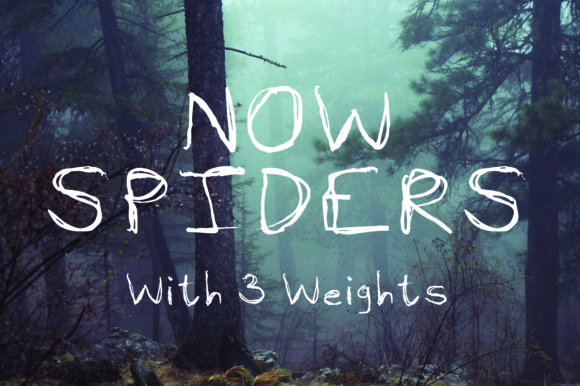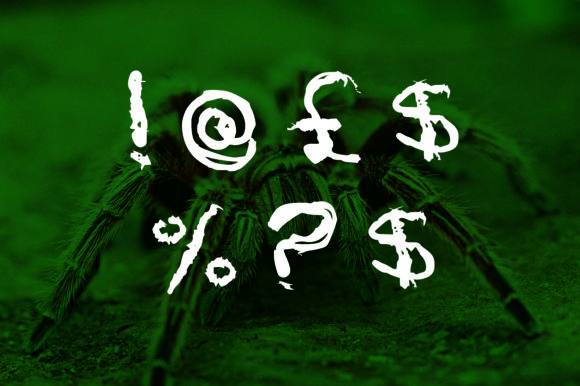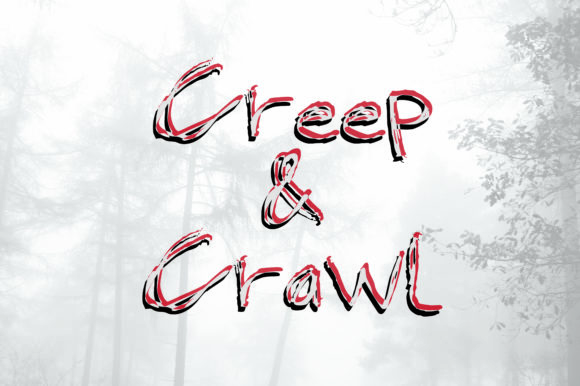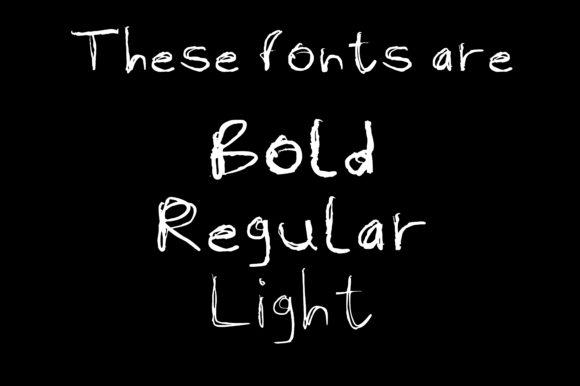
Now Spiders Font
About Now Spiders Font
Do you like Spiders? Now Spiders is a creepy Halloween-themed font with spider-like features. Use it for any design project that requires that special twist.